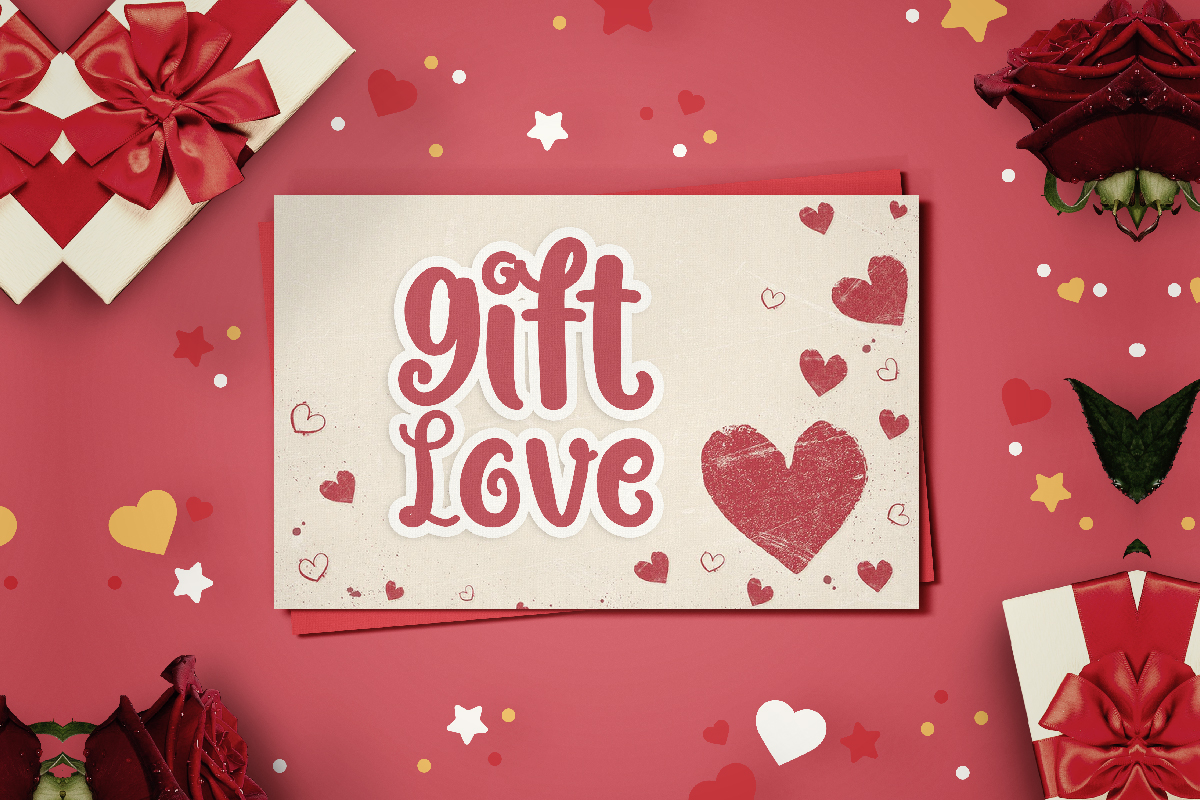
Curly Candy Font
Curly Candy Display Font
This is a playful and cute handwritten script font, created by CalligraphyFonts. This font has a unique curl at the end of each letter and makes it standout for your creative projects such as blog header, creating logo, custom design, greeting card, ice cream label, menu book, product packaging, quotes, title, ang more!